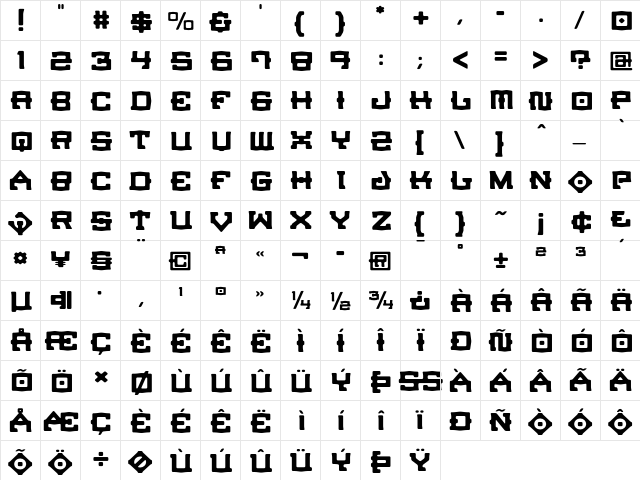
CrucibleBurnin-Ultra Bold
Design Context for CrucibleBurnin-Ultra Typeface
CrucibleBurnin-Ultra is a composed and adaptable typeface that performs quietly and consistently across a wide range of design contexts. The heavy weight commands attention and anchors typographic hierarchies.